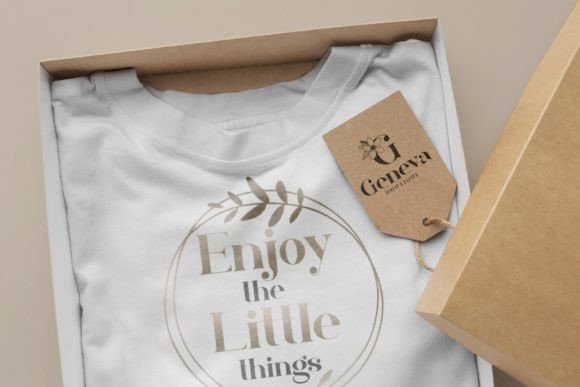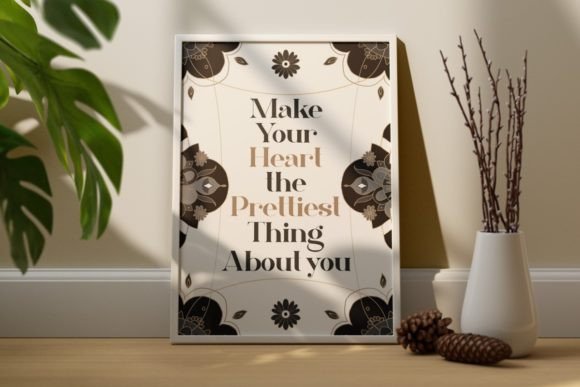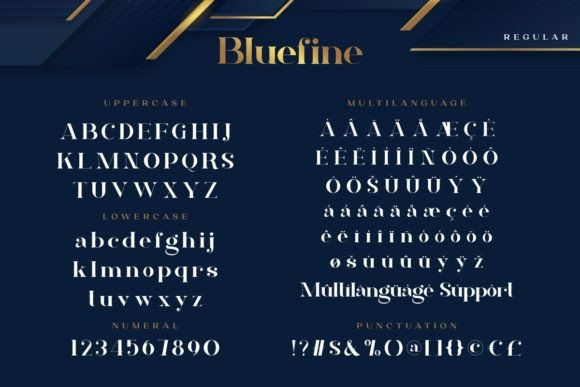
Introduction to Bluefine Font
Bluefine is a timeless serif font with elegant details and clean lines.
Its refined curves and balanced proportions exude sophistication, making it perfect for editorial design and high-end branding Whether used for print or digital applications, Bluefine commands attention with its timeless beauty and timeless appeal.